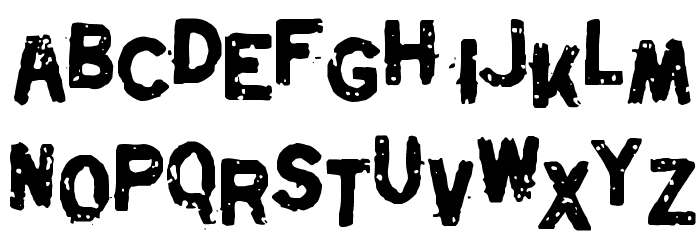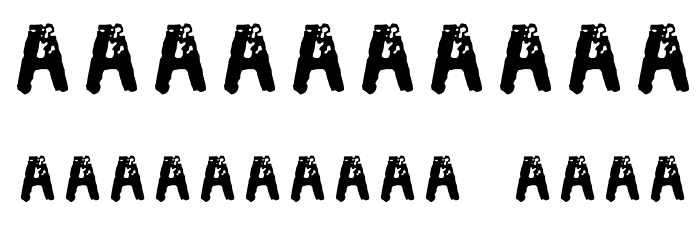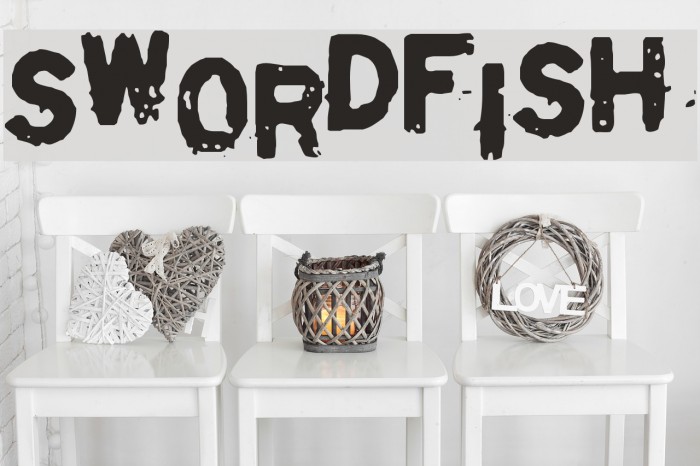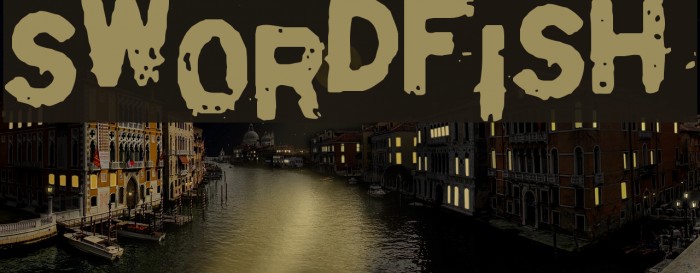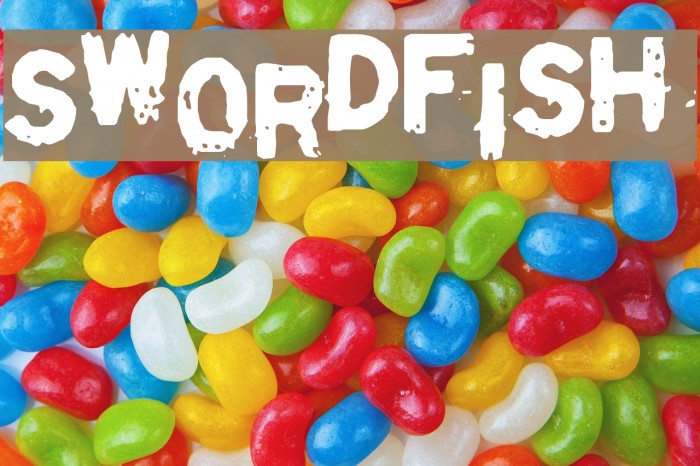
Swordfish Font
This font features a bold and distressed style, characterized by rough, uneven edges and a textured appearance that gives it a grunge or worn-out look. The letters are uppercase, with a consistent height and width, creating a uniform appearance despite the irregularities in the design. The font's rugged texture adds a sense of depth and character, making it ideal for projects that require a bold, eye-catching statement. Its unique style can evoke a sense of edginess or rebellion, making it suitable for creative and unconventional designs.
A bold, distressed font with a grunge texture and uniform uppercase letters.
- Proposed Projects: Ideal for album covers, posters, branding for edgy or alternative products, and any design needing a bold, textured statement.
- Overall Style: Grunge, Edgy, Bold